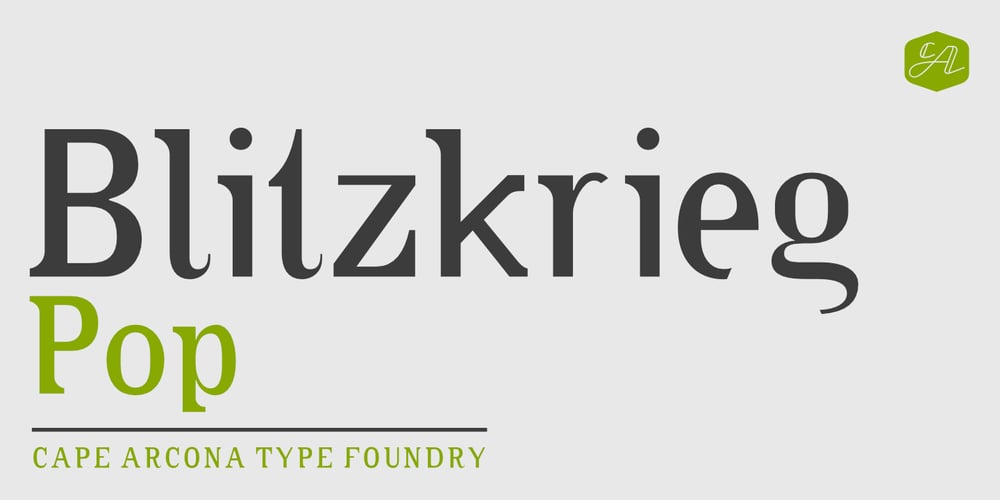
CA Blitzkrieg Pop Font Family was designed by Thomas Schostok and published by Cape Arcona Type Foundry. CA Blitzkrieg Pop contains 2 styles and family package options. What if the Ramones had been fontdesigners, would the result have looked like this? Probably not. And {ths} is not the Ramones, he probably doesn’t even know them because constantly listens to Elvis, or Barry White for a change. So we should not have bored you with the talk about the Ramones, but we had to, because this font speaks so much for itself that there isn’t anything for us to say about it. Except maybe for one thing: all those who suspect a Clarendon behind it should know: It’s all built from scratch. And the basic idea… well yes it’s true, it was something back in the 90s.